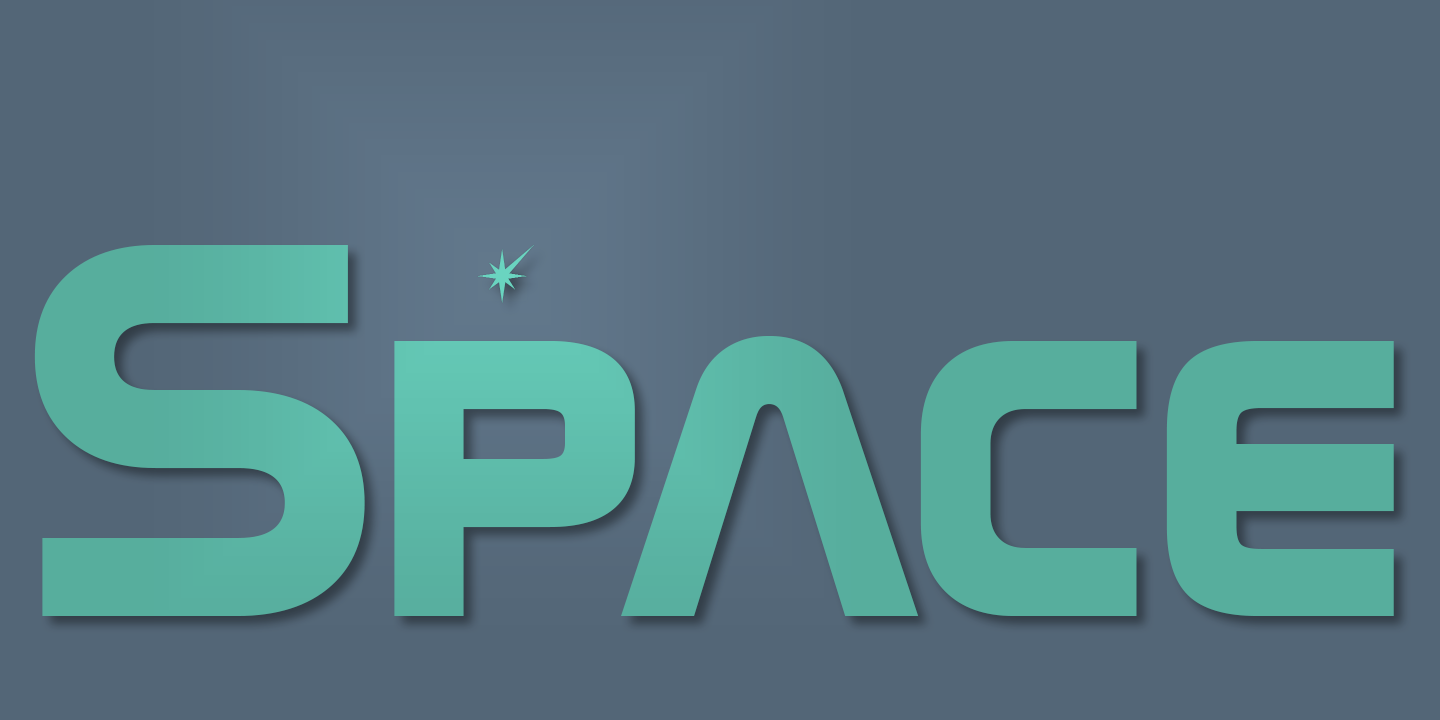
Space Font is perfect for futuristic sci-fi movie titles, space exploration company branding, astronomy education materials, planetarium display graphics, space technology presentations, cosmic-themed gaming interfaces, satellite communication designs, aerospace industry logos, space agency communications, and intergalactic design projects that require cosmic sophistication and astronomical precision.
This font is exciting because it captures the infinite wonder and technological precision of space exploration with sleek letterforms that seem to float through the cosmos with zero-gravity elegance, embodying the advanced engineering and cosmic mystery essential for space-age design applications. Space Font features geometric construction and stellar proportions that reflect the mathematical precision and futuristic vision required for aerospace and astronomical communications.
Space Font family includes Regular, Bold, Light, Cosmic, Stellar, Orbital, Galactic, and Nebula versions, plus space symbols, astronomical ornaments, cosmic elements, and stellar design features that enhance the authentic space aesthetic and provide comprehensive solutions for aerospace and astronomical applications.
For space exploration and futuristic design projects, Space Font Free Download delivers unmatched cosmic appeal and technological sophistication. The font's stellar letterforms and space-age character make it perfect for aerospace companies, space agencies, and technology brands seeking to communicate innovation, precision, and cosmic vision. Its futuristic design appeals to space enthusiasts and technology professionals who appreciate cutting-edge advancement and cosmic exploration. The character set includes astronomical symbols and space notation that reflect aerospace industry standards. Professional designers appreciate its ability to convey both technological authority and cosmic wonder while maintaining excellent readability across space technology marketing, astronomical communications, and futuristic branding materials, making it essential for organizations that want to project the infinite possibilities and technological excellence that defines space exploration and communicates the cosmic vision and engineering precision of aerospace innovation.